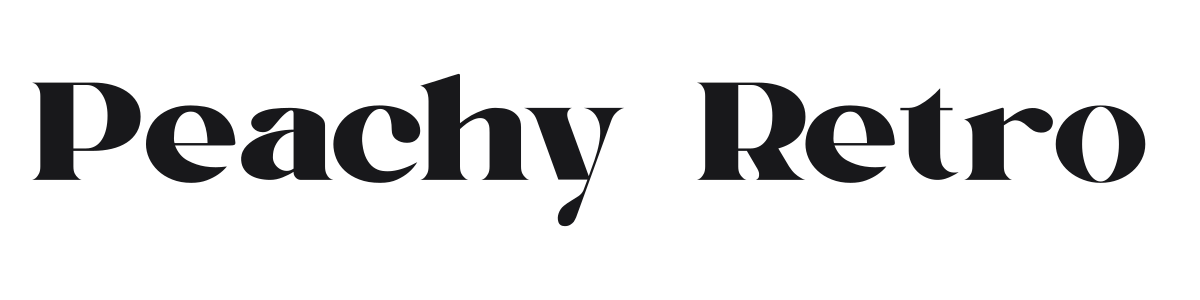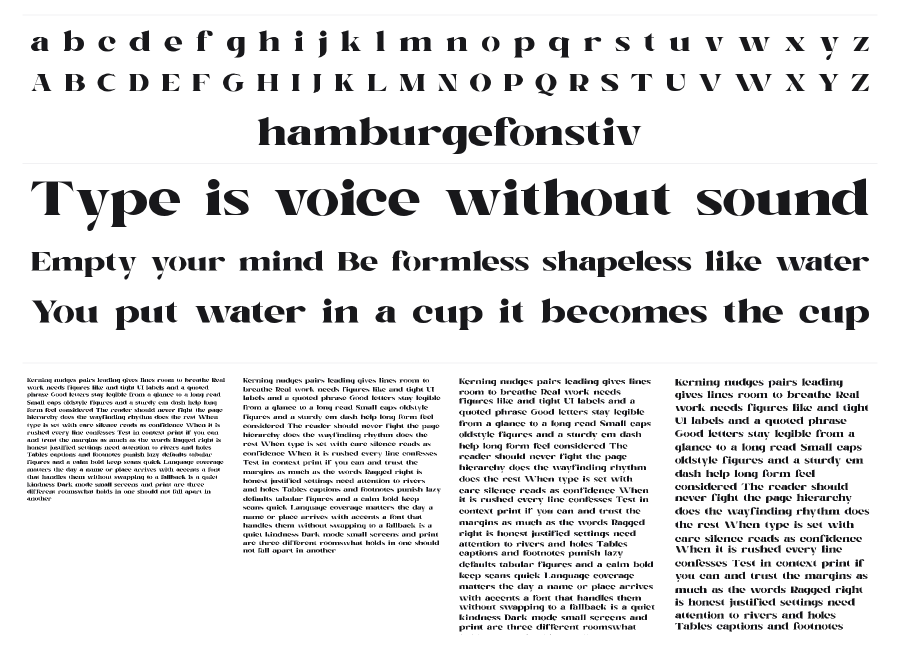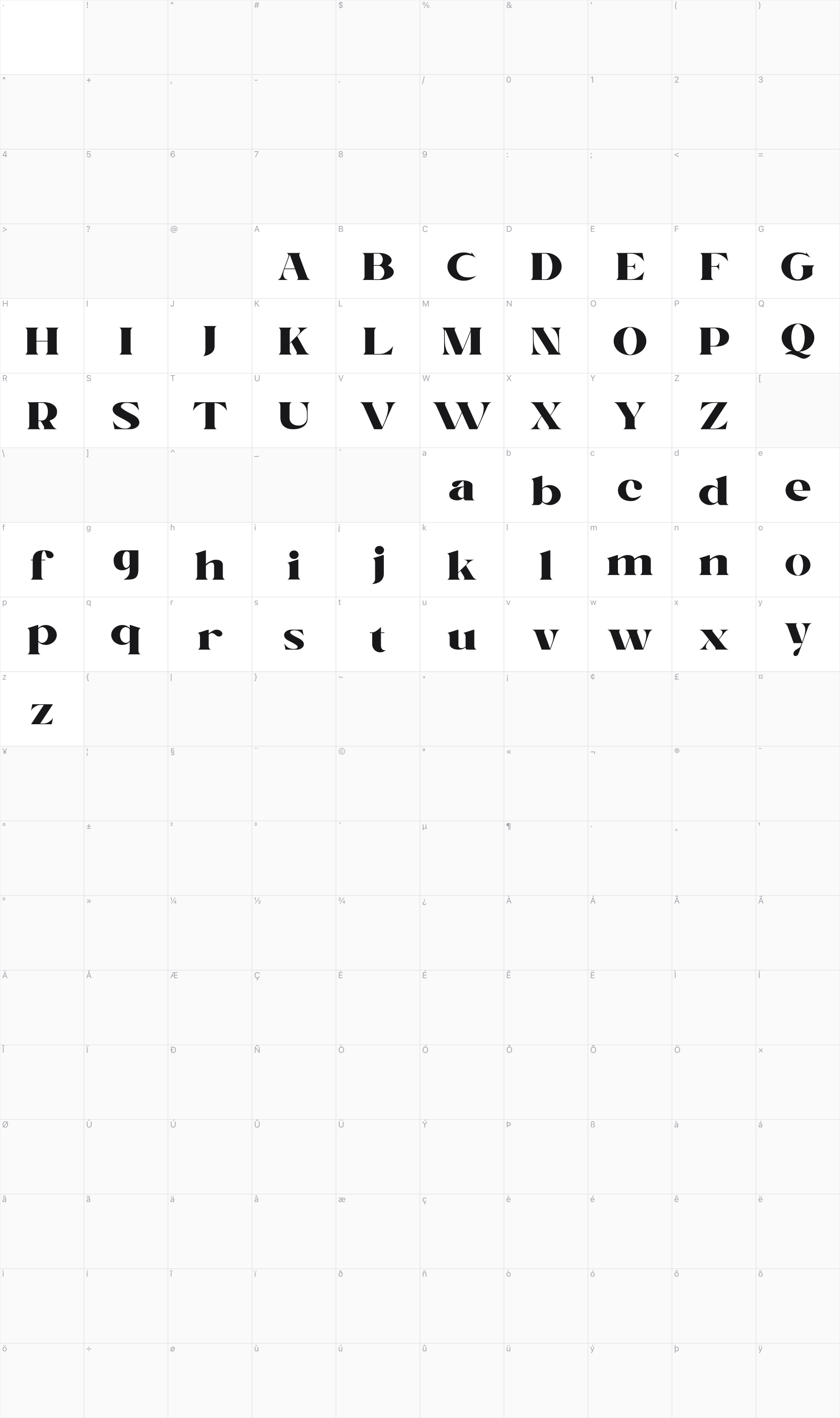
Peachy Retro
Peachy Retro is a bold high-contrast serif with thick stems and delicate hairlines that channel the warmth of mid-century editorial typography. The generous proportions and soft bracket details give it a retro-friendly quality that feels both fashionable and approachable. Strong choice for headlines, packaging, and branding that wants personality without aggression.